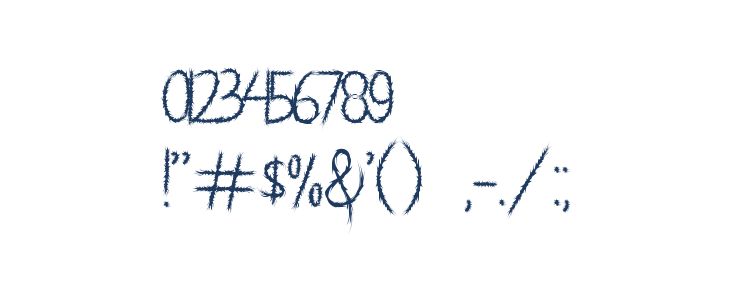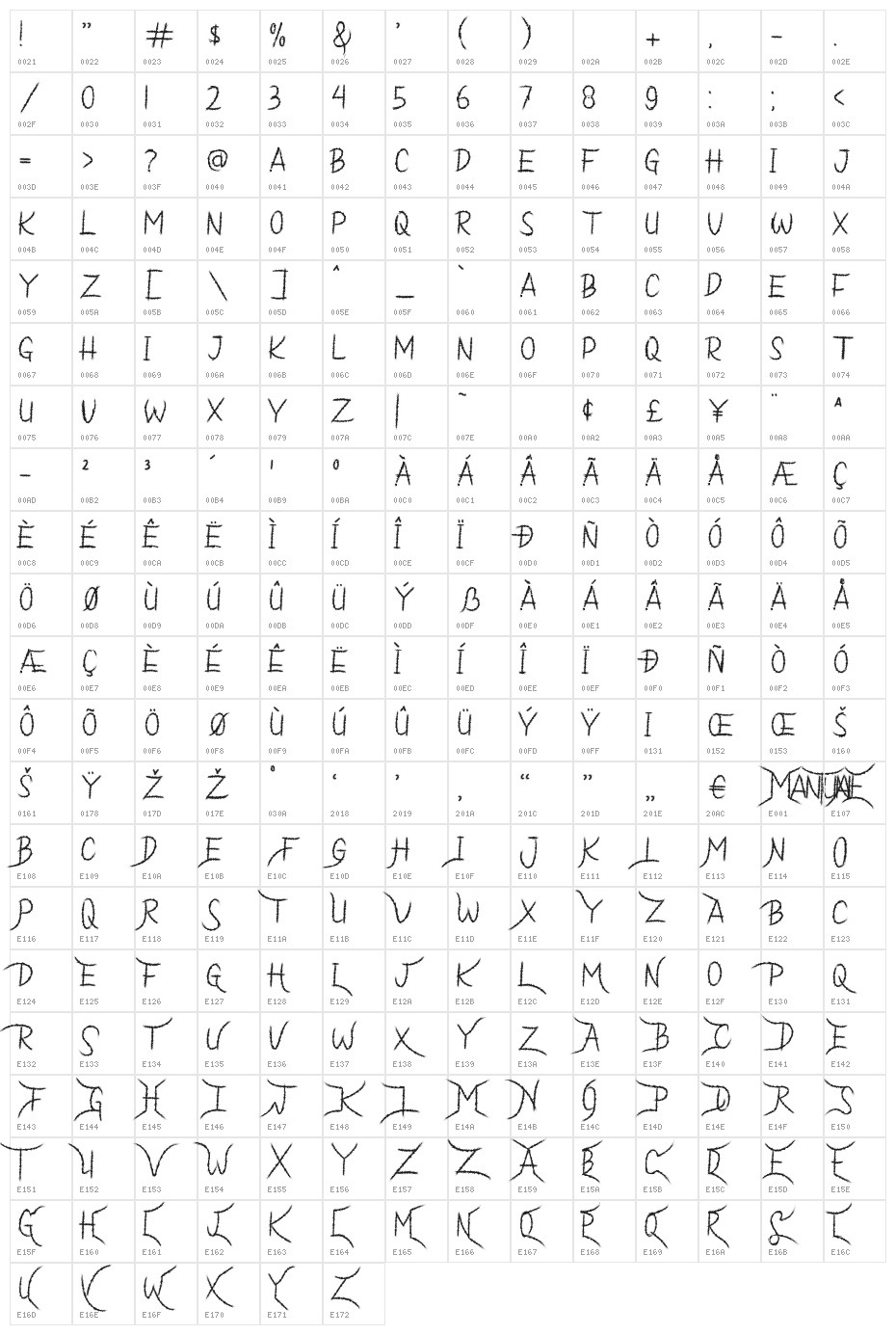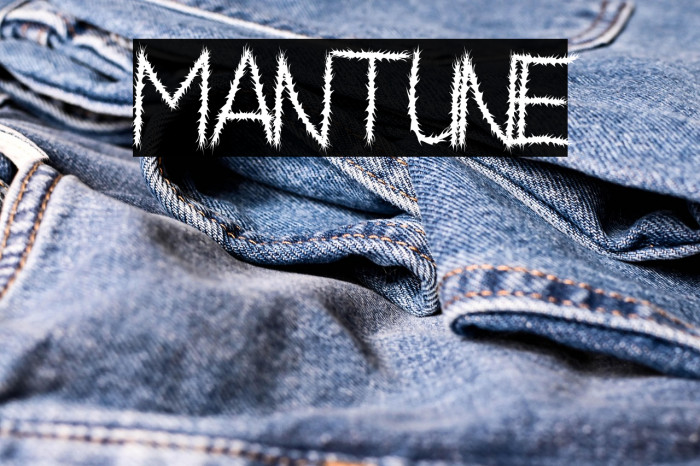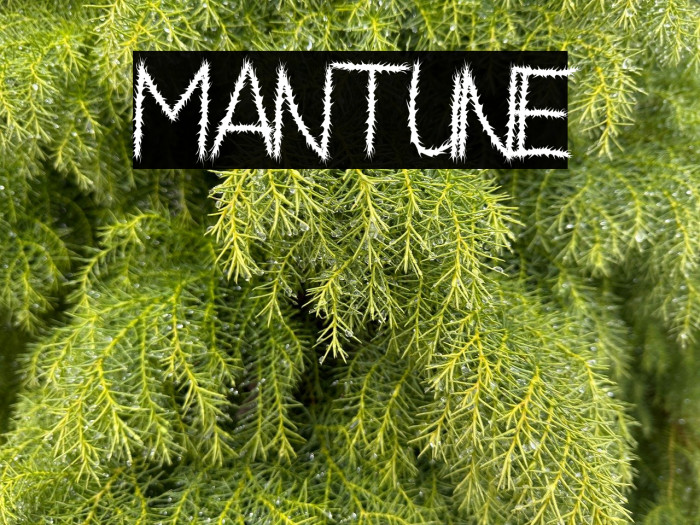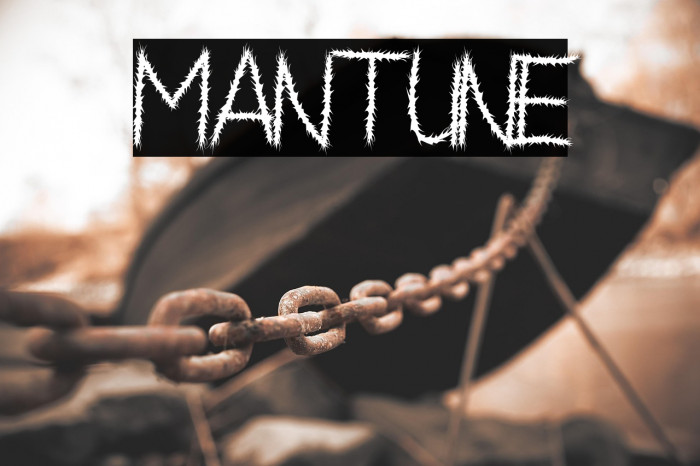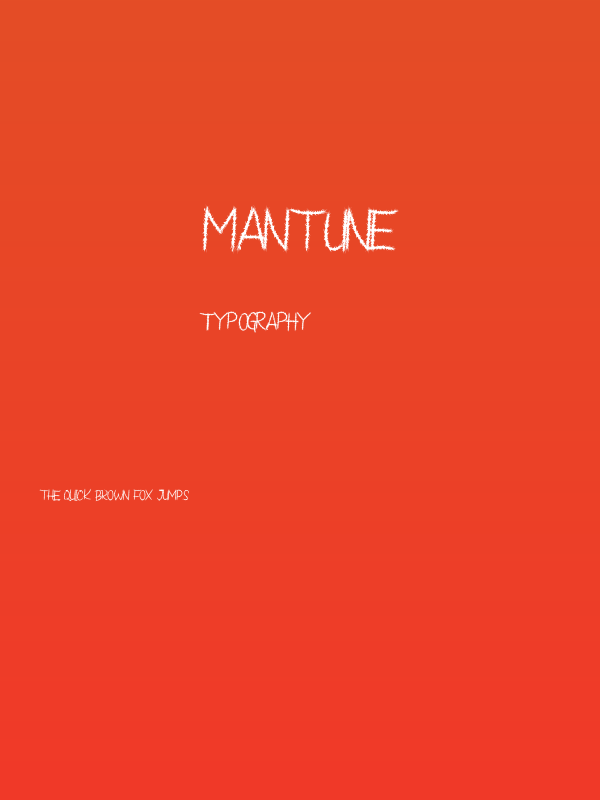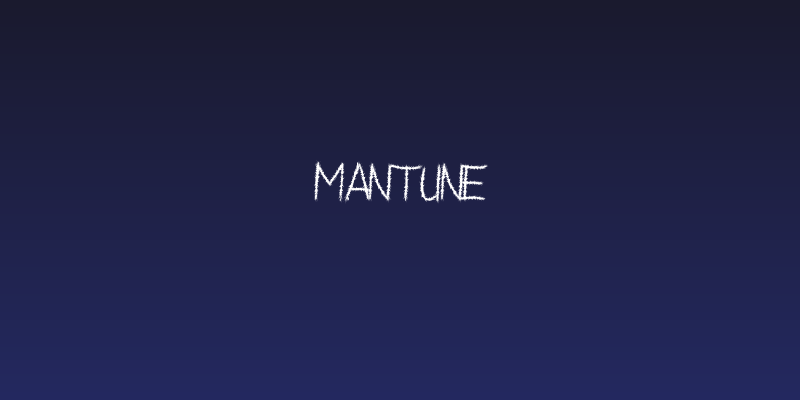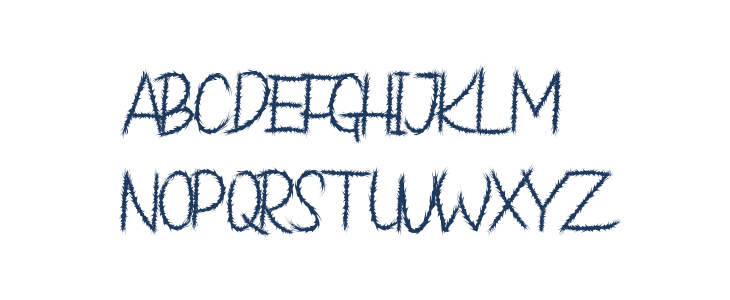
Mantune Font
Mantune Description
This font features a unique, edgy design with sharp, jagged edges that give it a thorny appearance. The characters are bold and striking, making a strong visual impact. The uppercase and lowercase letters maintain a consistent style, with each character exhibiting a dynamic, energetic form. The numbers and special characters follow the same aesthetic, ensuring a cohesive look across all text elements. This font's distinctive style is reminiscent of natural elements like thorns or brambles, adding an organic yet aggressive feel to any design.
| Use Case | Logos, Headlines, Posters |
| Proposed Projects | Ideal for edgy branding, album covers, posters, and any project requiring a bold, unconventional look. |